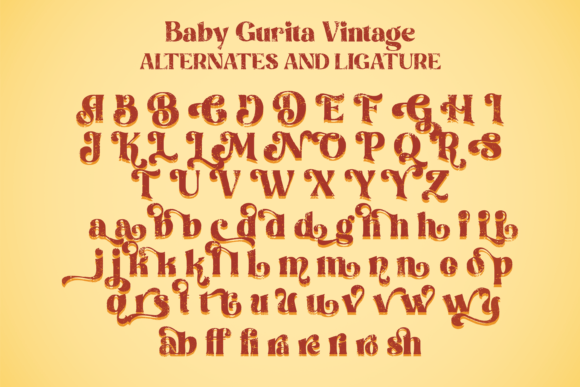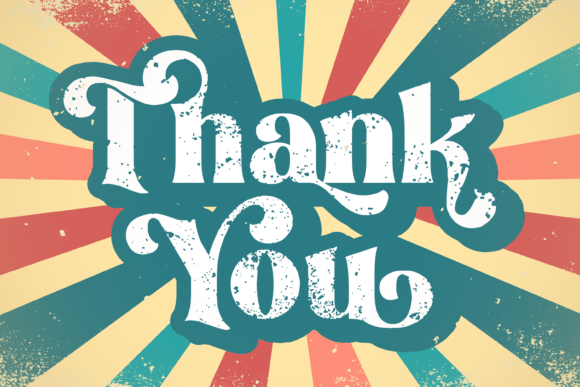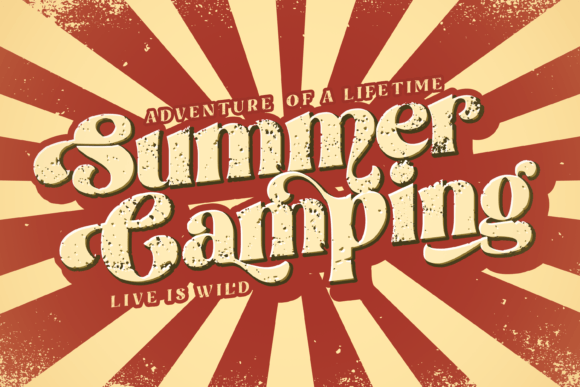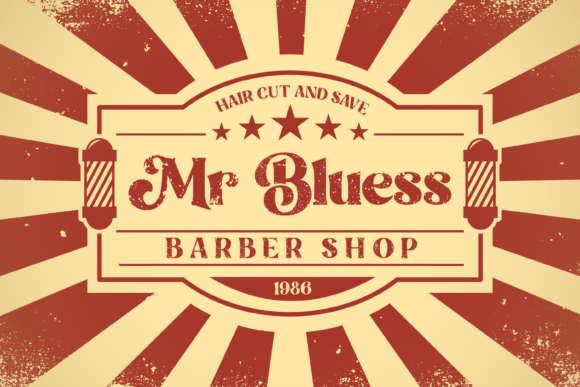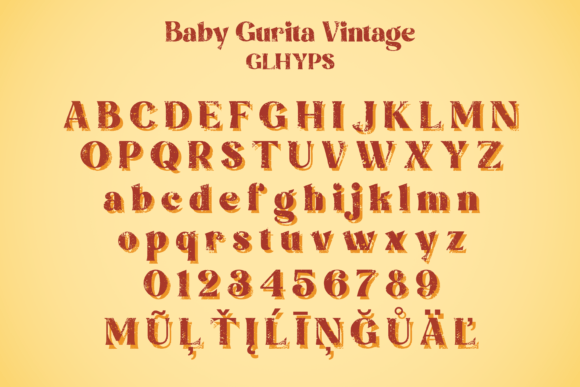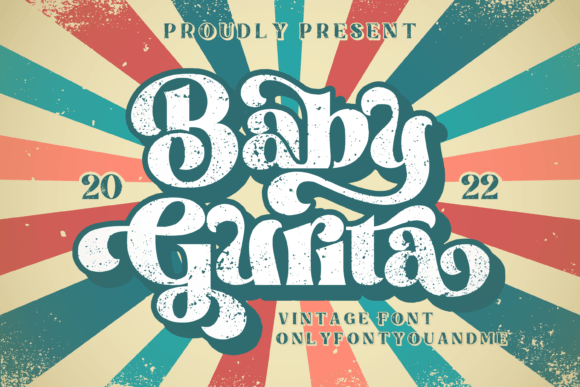
Baby Gurita Font: The Ultimate Retro Display Font for Designers and Crafters
Are you on the hunt for a font that exudes a cool, retro vibe and is perfect for display purposes? Look no further than the Baby Gurita Font! This fantastic font is designed to add a touch of fun and playfulness to your designs, making it an excellent choice for headlines, magazines, logos, branding, and more.
What Makes Baby Gurita Font So Special?
Baby Gurita Font is a PUA-encoded font, which means that accessing all the glyphs and alternates is a breeze. This feature makes it incredibly versatile and user-friendly, allowing designers and crafters to experiment with various styles and combinations to create unique and eye-catching designs.
Key Features of Baby Gurita Font
- PUA Encoded: Easy access to all glyphs and alternates for effortless design experimentation.
- Cool, Retro, and Fun: Perfect for creating designs that stand out with a vintage flair.
- Display Font: Ideal for headlines, titles, and large display texts.
- Versatile: Suitable for magazines, logos, branding, and a wide range of design projects.
Bright Burn: A Cool, Retro, and Fun Display Font
In the realm of display fonts, Bright Burn stands out as a cool, retro, and fun option that pairs perfectly with the Baby Gurita Font. This font is specifically designed to make your headlines, magazines, logos, and branding materials pop with a retro vibe that’s sure to capture attention.
Why Choose Baby Gurita Font?
Choosing Baby Gurita Font for your design projects comes with numerous benefits:
- Unique Designs: The PUA encoding and variety of glyphs and alternates allow for the creation of truly one-of-a-kind designs.
- Time-Saving: With easy access to a wide range of characters, you can save time and streamline your design process.
- Professional Look: The retro and fun vibe of the font can add a professional yet playful touch to your designs, setting them apart from the rest.
Baby Gurita Font, paired with the Bright Burn display font, offers an unbeatable combination for designers and crafters looking to infuse their projects with a cool, retro, and fun vibe. Its PUA encoding, versatility, and ease of use make it an excellent choice for a wide range of design applications. Whether you’re working on headlines, magazines, logos, or branding materials, Baby Gurita Font is sure to elevate your designs to the next level.